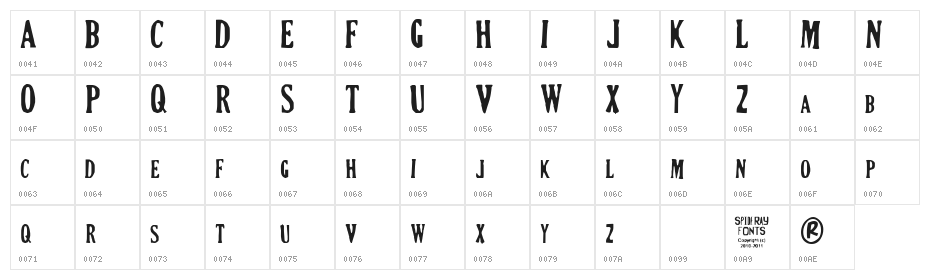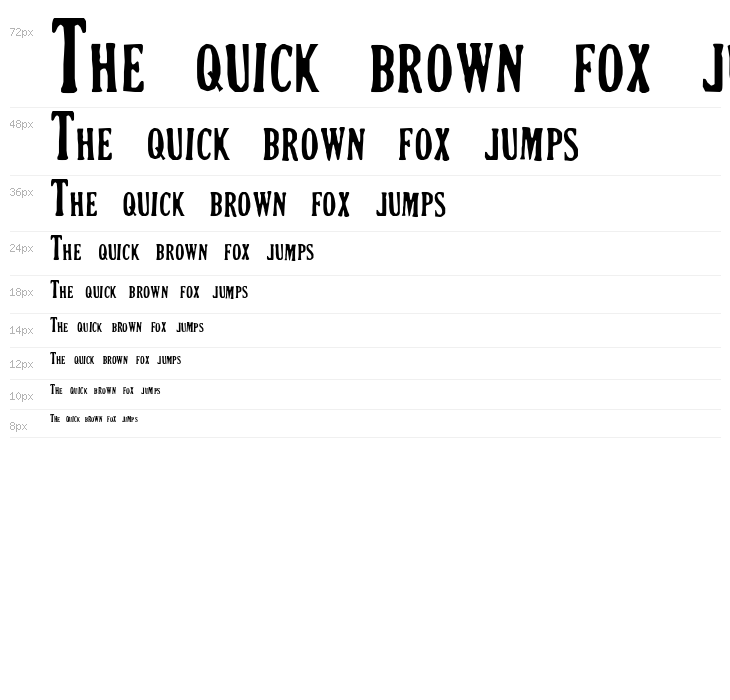
Crimson Petal Font
Crimson Petal Description
This font features a bold and striking design with a vintage flair, characterized by its thick, uneven strokes and slightly irregular edges. The uppercase letters are particularly prominent, with a strong presence that commands attention. The lowercase letters maintain the same boldness, ensuring consistency throughout the typeface. The overall style is reminiscent of early 20th-century typography, making it ideal for projects that require a touch of nostalgia or a retro aesthetic. Its unique character shapes and bold weight make it suitable for headlines, posters, and branding materials where a strong visual impact is desired.
| Use Case | Headlines, Posters, Branding |
| Proposed Projects | Ideal for vintage-themed posters, branding, and headlines that require a bold statement. |